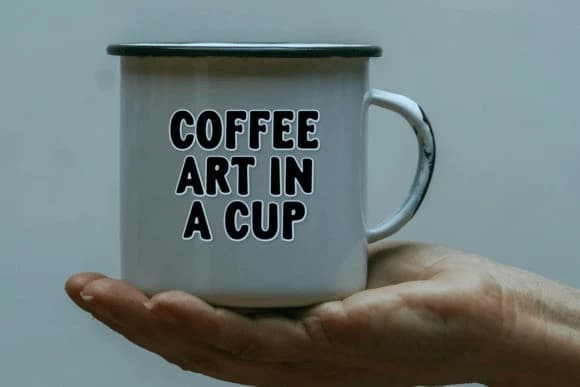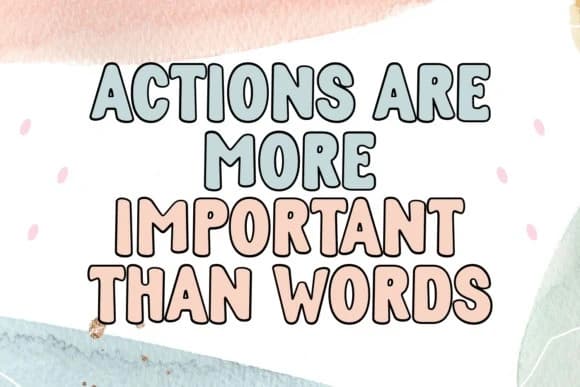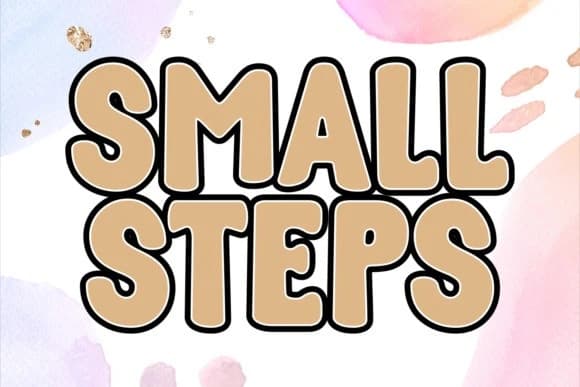
Support Forever Font
Support Forever Font Is a display font that is strikingly adorable, encapsulating the soft edges of love and the sharp allure of fashion. With hand-drawn elements, it’s perfect for injecting a personal touch on headlines and crafts, making it a staple for creatives and professionals alike.